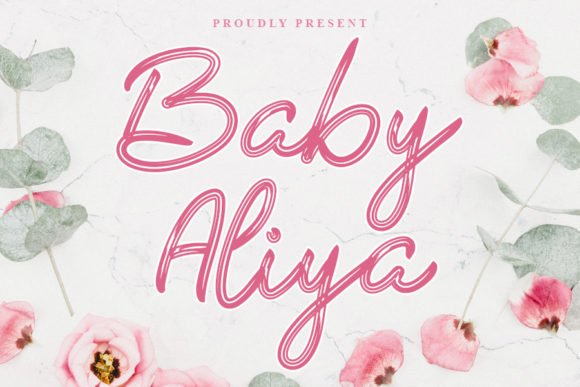
Discover the Sweet Charm of Baby Aliya Font
As designers, we’ve all been there – stuck in front of our computer screens, brainstorming ideas for a new project, and desperately seeking inspiration. It’s in these moments that we stumble upon something special, and our creative spark is reignited. For me, that moment came when I laid eyes on the Baby Aliya Font. This charming, handwritten font exudes a sense of warmth and romance, instantly transporting me to a world of whimsy and wonder.
With its relaxed and flowing style, the Baby Aliya Font is perfect for adding a touch of joy to any design. Whether you’re working on a wedding invitation, a children’s book, or a social media campaign, this font is sure to bring a smile to your audience’s faces. As a designer, having access to versatile fonts like Baby Aliya Font can be a game-changer, allowing you to experiment with new ideas and push the boundaries of your creativity.
Baby Aliya Font Key Features
- Font Family: Baby Aliya is a handwritten script font designed to evoke a sense of whimsy and playfulness.
- Unique Characteristics: Baby Aliya features unique letterforms with subtle imperfections, giving it a hand-drawn feel.
Designer Review: Baby Aliya Font
Overall, I think the Baby Aliya font is a delightful addition to any design project. The font has a whimsical and playful feel that makes it perfect for child-related designs, such as children’s books, nursery decorations, or kids’ clothing labels. ✨ The rounded edges and soft curves give it a friendly and approachable look that is sure to put a smile on anyone’s face.
One of the things I like most about the Baby Aliya font is its versatility. It can be used for both body text and titles, making it a great choice for designers who need a font that can handle multiple roles in a project. The font also comes in a range of weights and styles, from light to bold, which allows for a lot of creative flexibility. ✨
While the Baby Aliya font is a great choice for many projects, there are some limitations to be aware of. ⚠️ One of the main limitations is its lack of scalability. While the font looks great at larger sizes, it can become pixelated and distorted when used at smaller sizes. Additionally, the font may not be the best choice for projects that require a more formal or professional tone.
Overall, I would highly recommend the Baby Aliya font for designers who are looking for a playful and whimsical font for their child-related projects. While it may have some limitations, the font’s versatility and charm make it a great choice for many designers. Just be sure to use it at the right size and in the right context to get the best results.
- Whimsical and playful design
- Delightful for child-related designs
- Multiple weights and styles
- Perfect for body text and titles
- Lack of scalability
- Not suitable for formal or professional projects
Practical Application Guide for Baby Aliya Font
The Baby Aliya font is perfect for:
- Children’s book titles and headings
- Food and drink labels
Remember to pair the Baby Aliya font with a clear and readable font for body text to ensure easy readability.
Alternatives to Baby Aliya Font
Great Vibes is a beautiful, elegant script font perfect for creating a warm and inviting atmosphere. It’s ideal for use in wedding invitations, quotes, and any design where a touch of romance is needed. Compared to Baby Aliya Font, Great Vibes has a more flowing and dynamic feel, making it suitable for longer text blocks.
Lobster is a stylish, cursive font with a modern twist. It’s great for use in headings, titles, and other design elements where a bold, eye-catching look is desired. While Baby Aliya Font has a more delicate feel, Lobster Font is bolder and more attention-grabbing, making it perfect for use in promotional materials and advertisements.